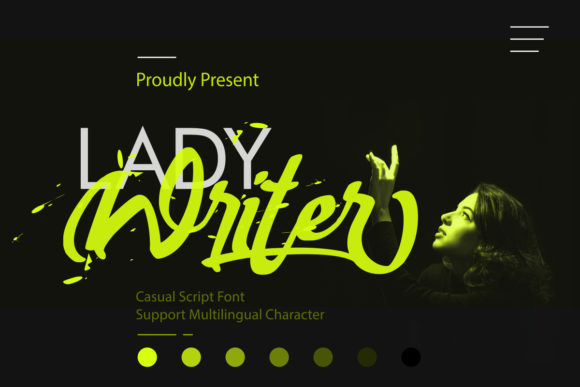
Unleash your creativity with Lady Writer Font, a captivating script font that exudes individuality and grace. Let your words dance with elegance as they flow through the pages, leaving an unforgettable impression on readers.
Express your heartfelt emotions or share your unique stories with a font that truly speaks to you. The Lady Writer Font's distinct and charming style is perfect for crafting invitations, greeting cards, and other personal projects. Its modern vibe adds a touch of sophistication to any design, making it the perfect choice for expressing your creativity.
With its inherent charm and versatility, the Lady Writer Font is a must-have for any designer's toolkit. Whether you're a seasoned professional or just starting, this font will elevate your projects with its exquisite beauty. Embrace the power of self-expression and make a lasting impression with every word you write.